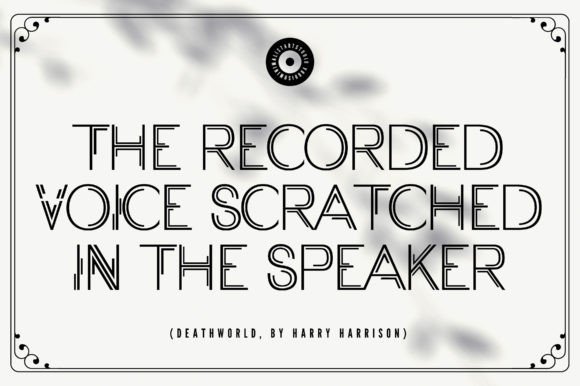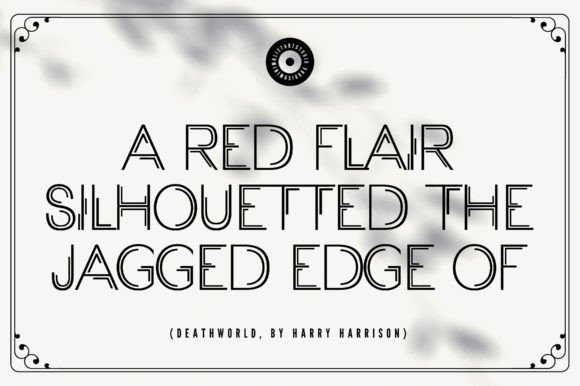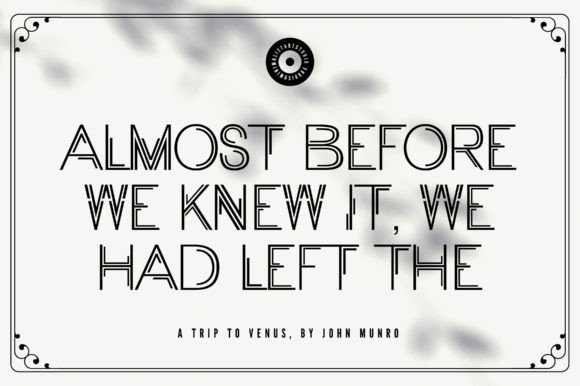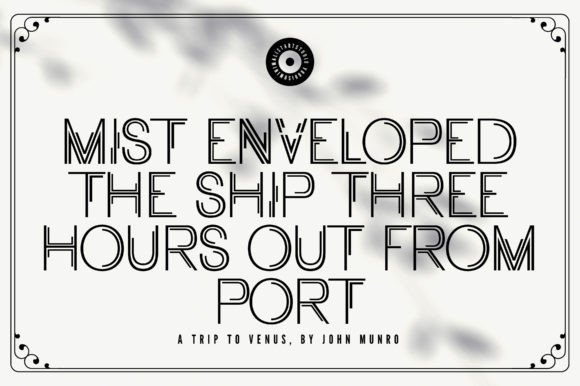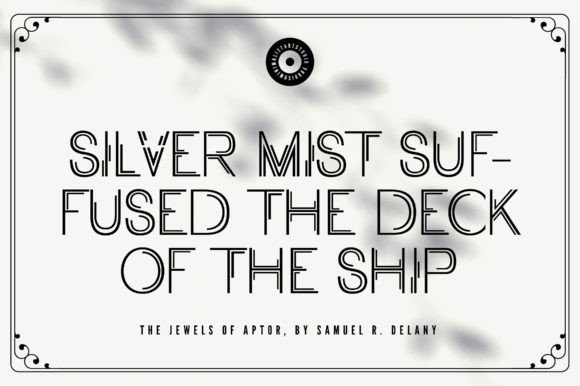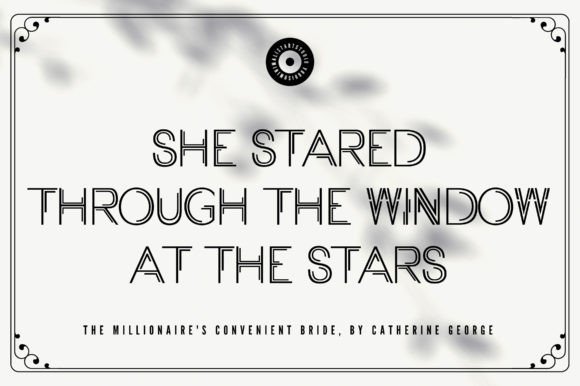
Introducing Corke: The Ultimate Font for Modern and Minimalist Design
In the world of design, fonts play a crucial role in conveying the message and aesthetic of a brand or project. With so many fonts available, it can be overwhelming to choose the right one. However, if you’re looking for a font that embodies modernity and minimalism, look no further than Corke. This geometric and clean sans serif grotesque font is perfect for designers who value simplicity and elegance.
The Characteristics of Corke Font
Corke is a meticulously crafted font that features crisp lines and angles, creating a sleek and sophisticated appearance. Its minimalist design makes it perfect for a wide range of applications, from branding and logos to web design and editorial layouts. The font’s clean and geometric style gives it a fresh and contemporary look that’s sure to elevate any project.
Key Features of Corke Font
- Geometric and clean sans serif grotesque style: Corke’s design is characterized by its geometric and clean sans serif grotesque style, making it perfect for modern and minimalist designs.
- Full range of uppercase and lowercase characters: Corke features a full range of uppercase and lowercase characters, ensuring that you have all the characters you need to create stunning designs.
- Numbers and punctuation marks: In addition to its comprehensive character set, Corke also includes numbers and punctuation marks, making it incredibly versatile.
- Precision-crafted with attention to detail: Corke’s design is precision-crafted with attention to detail, ensuring that every line and angle is crisp and clean.
Why Choose Corke Font?
- Perfect for modern and minimalist designs: Corke’s clean and geometric style makes it perfect for modern and minimalist designs.
- Incredibly versatile: With its comprehensive character set, Corke can be used in a wide range of design contexts, from branding and logos to web design and editorial layouts.
- Easy to read: Corke’s clean design makes it easy to read, even at small sizes.
- Unique and distinctive: Corke’s geometric style sets it apart from other fonts, making it a great choice for designers who want to create a unique and distinctive look.
- Branding and logos: Corke’s clean and modern design makes it perfect for creating logos and branding materials.
- Web design: Corke’s geometric style makes it a great choice for web design, particularly for tech and fashion brands.
- Editorial layouts: Corke’s clean design makes it perfect for editorial layouts, such as magazine spreads and newspaper articles.
- Use it with a bold color scheme: Corke’s clean design makes it perfect for use with bold color schemes.
- Experiment with different sizes: Corke’s design looks great at a variety of sizes, so don’t be afraid to experiment.
- Pair it with other fonts: Corke can be paired with other fonts to create a unique and distinctive look.